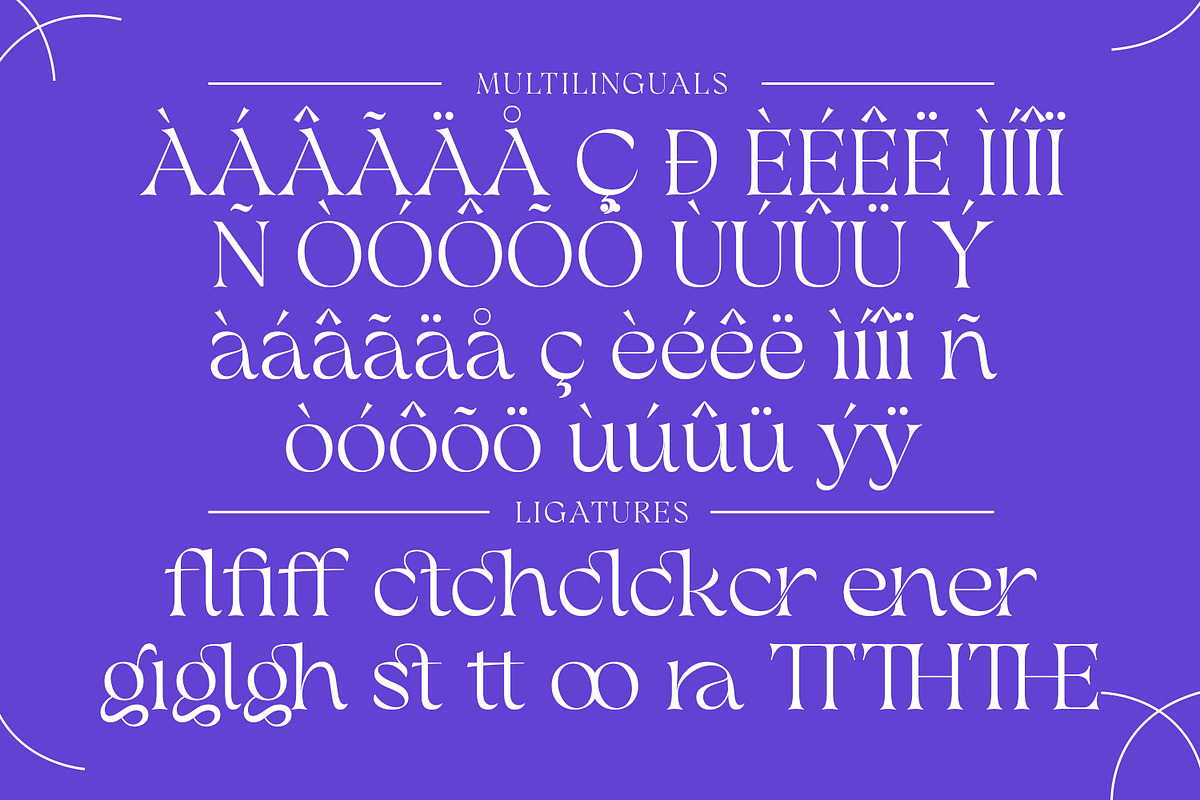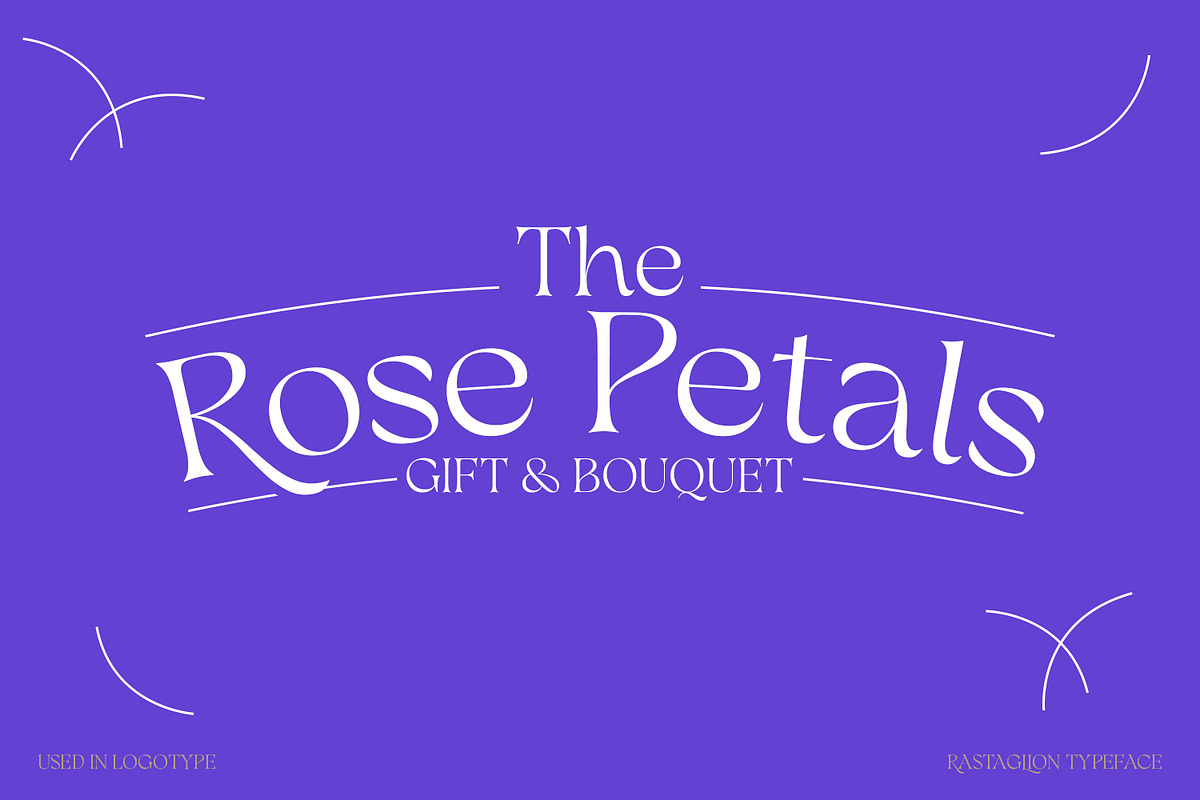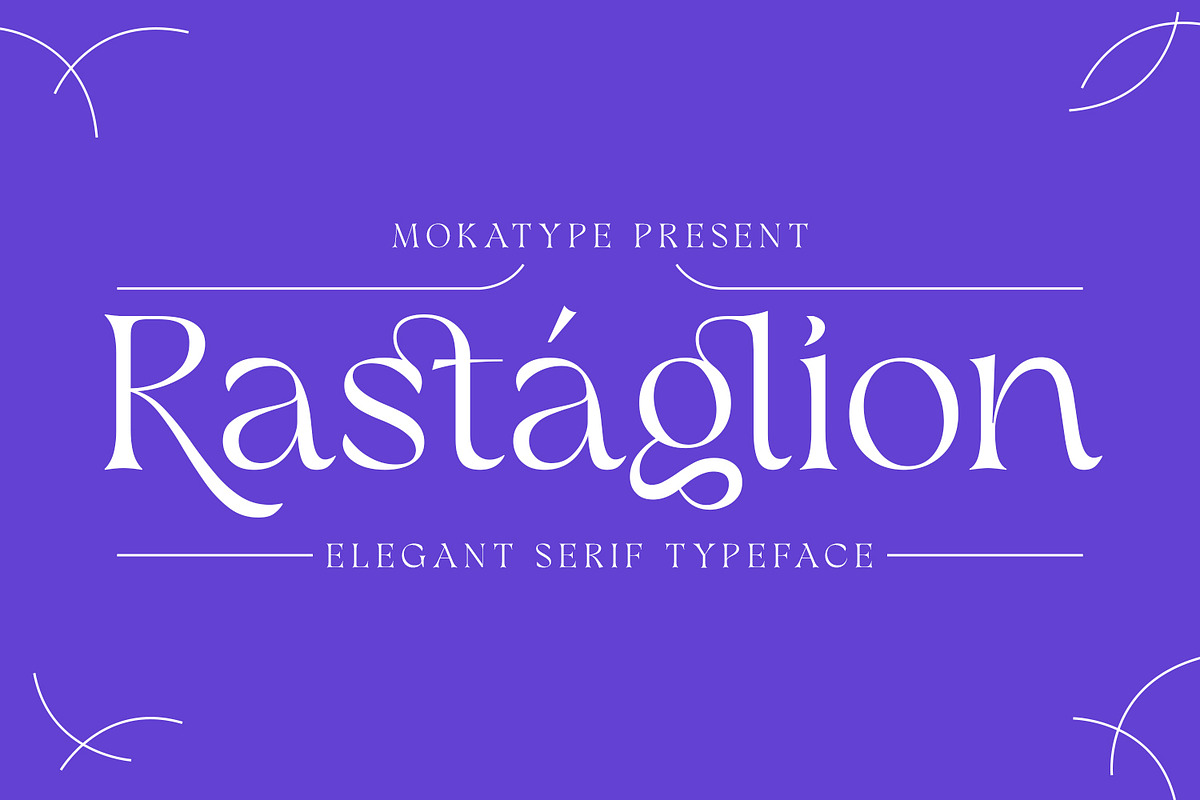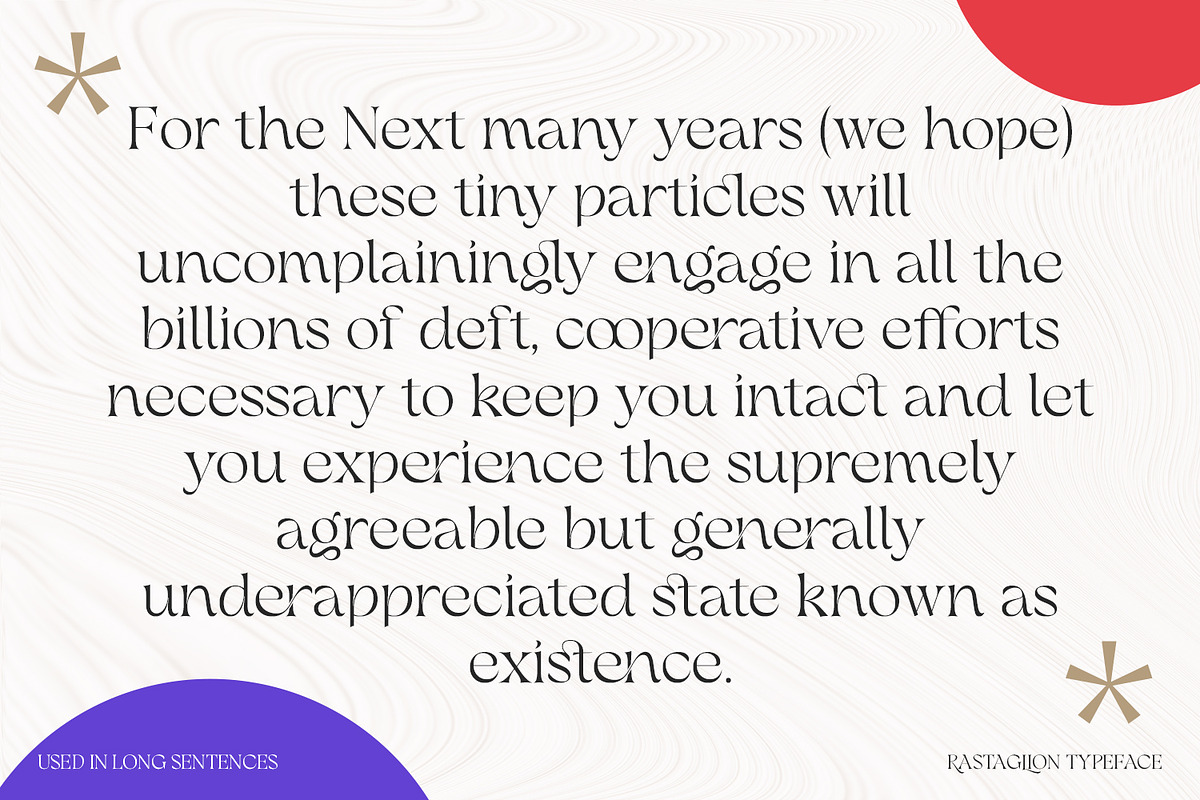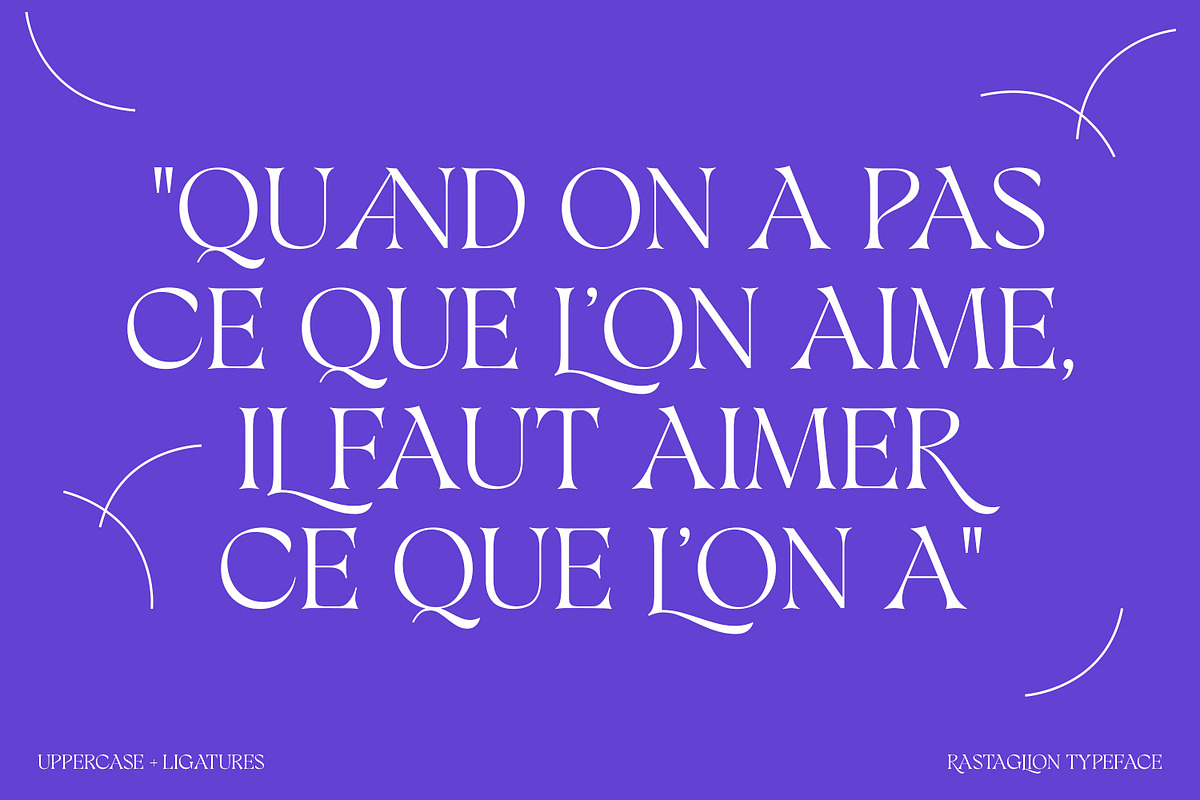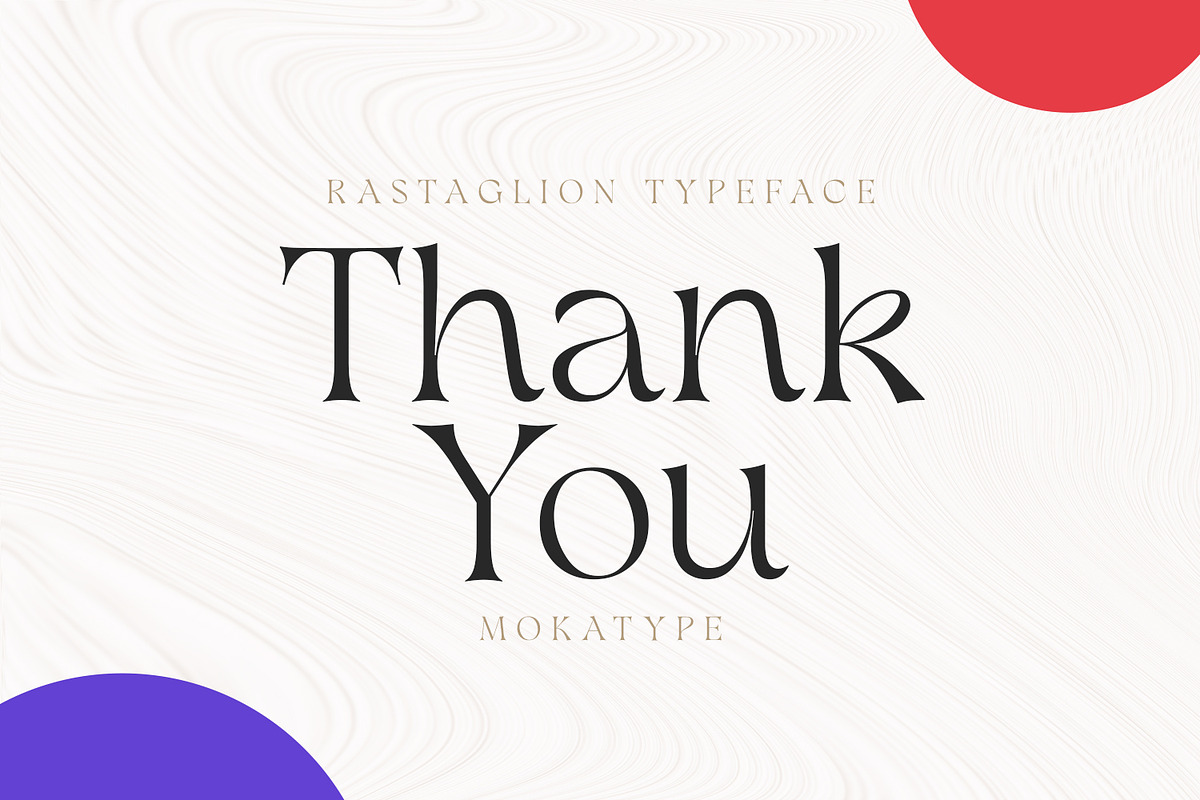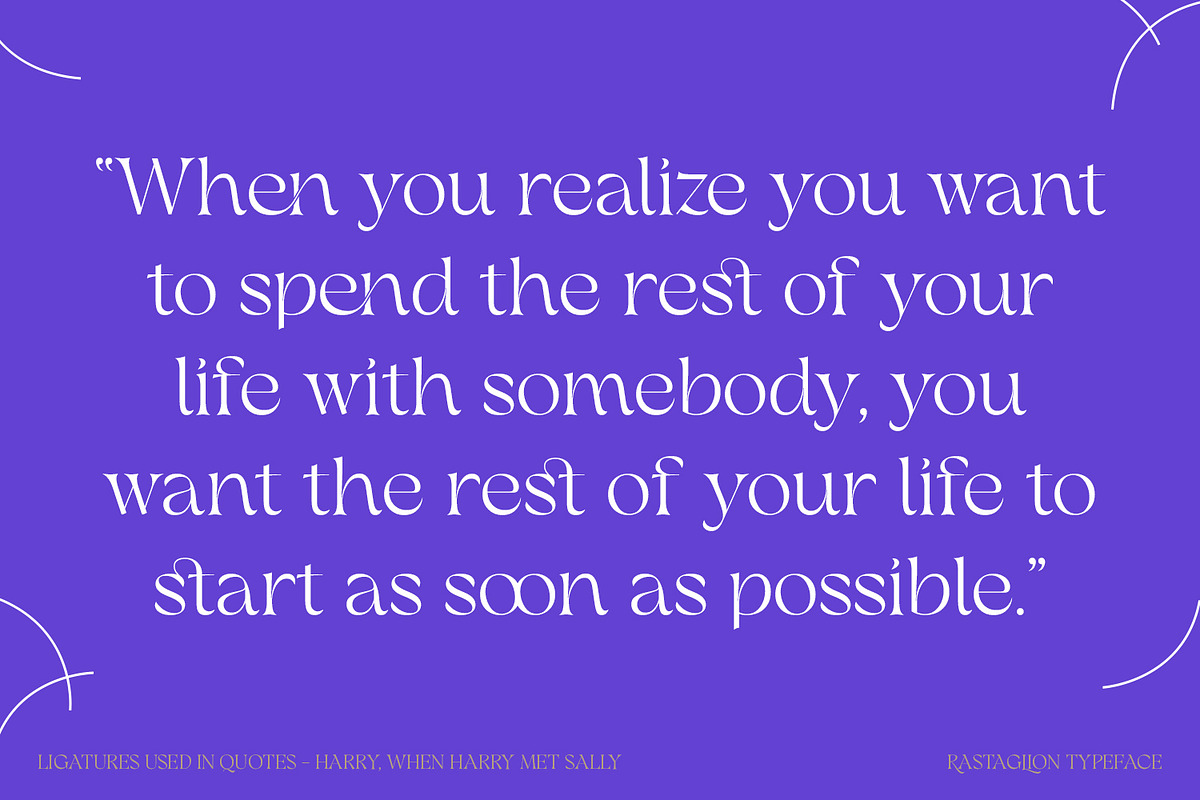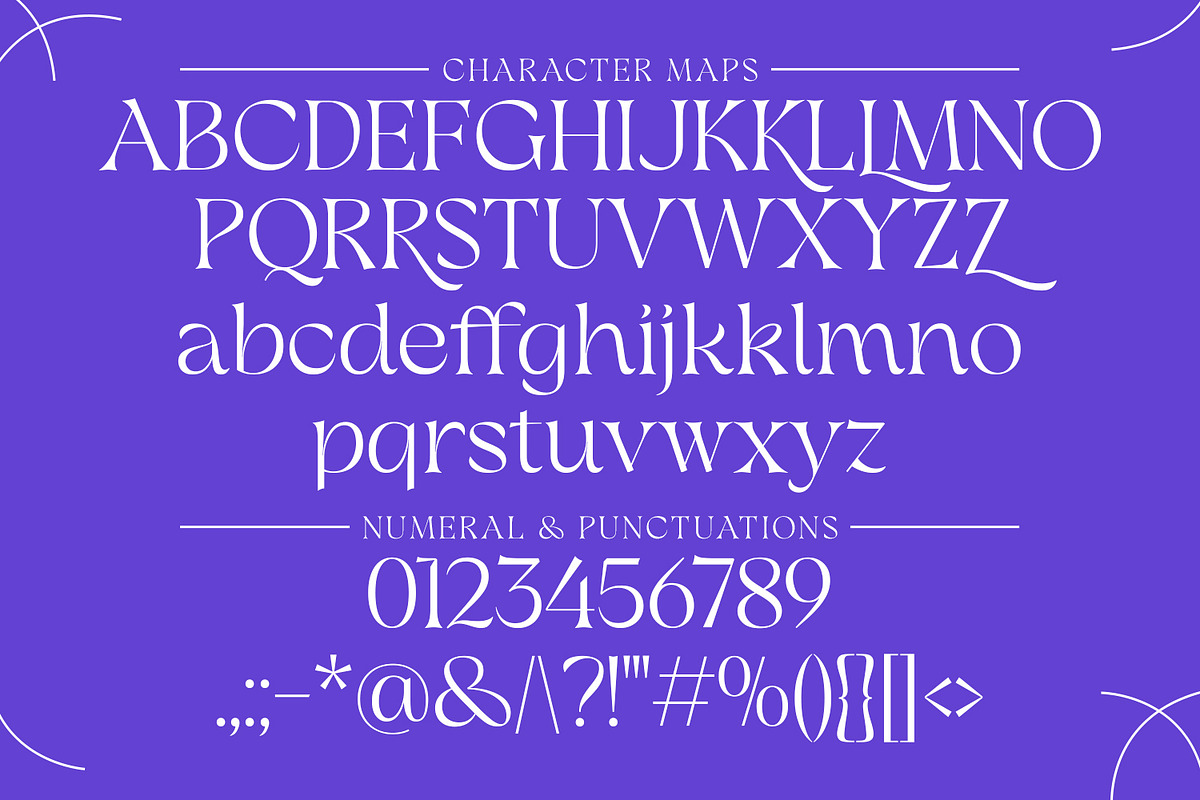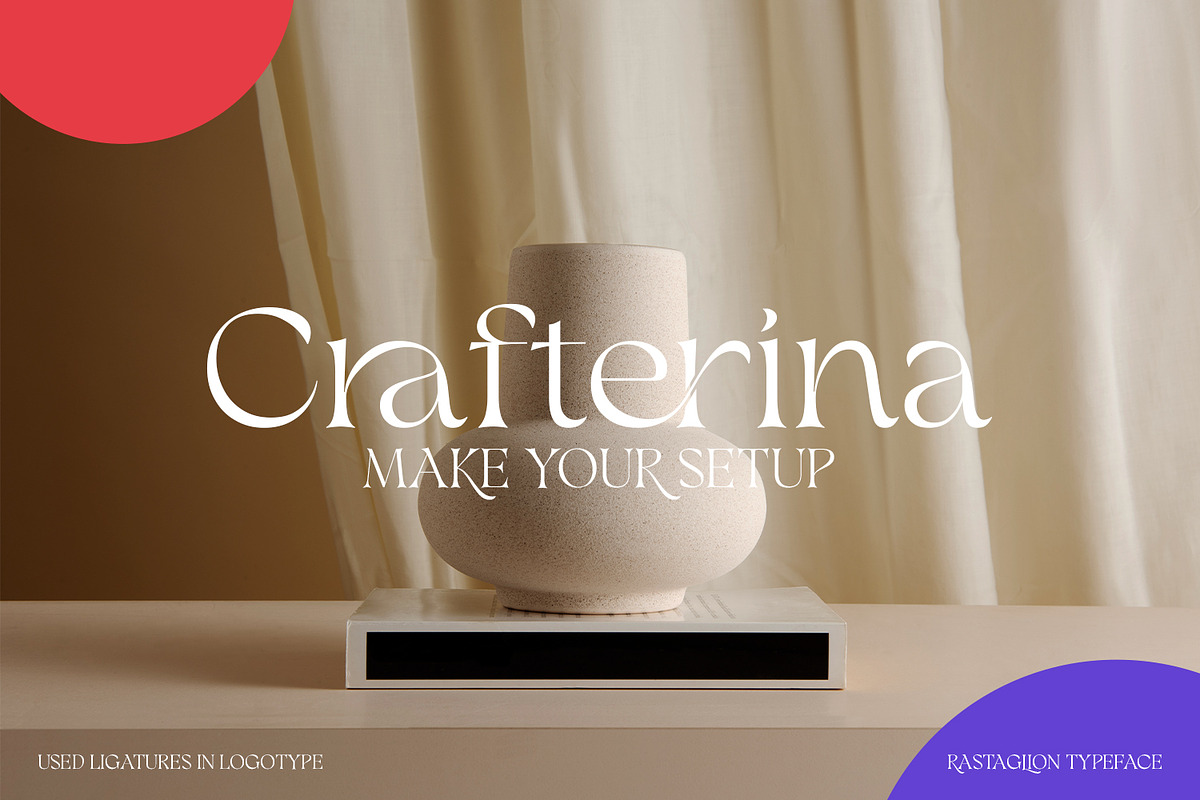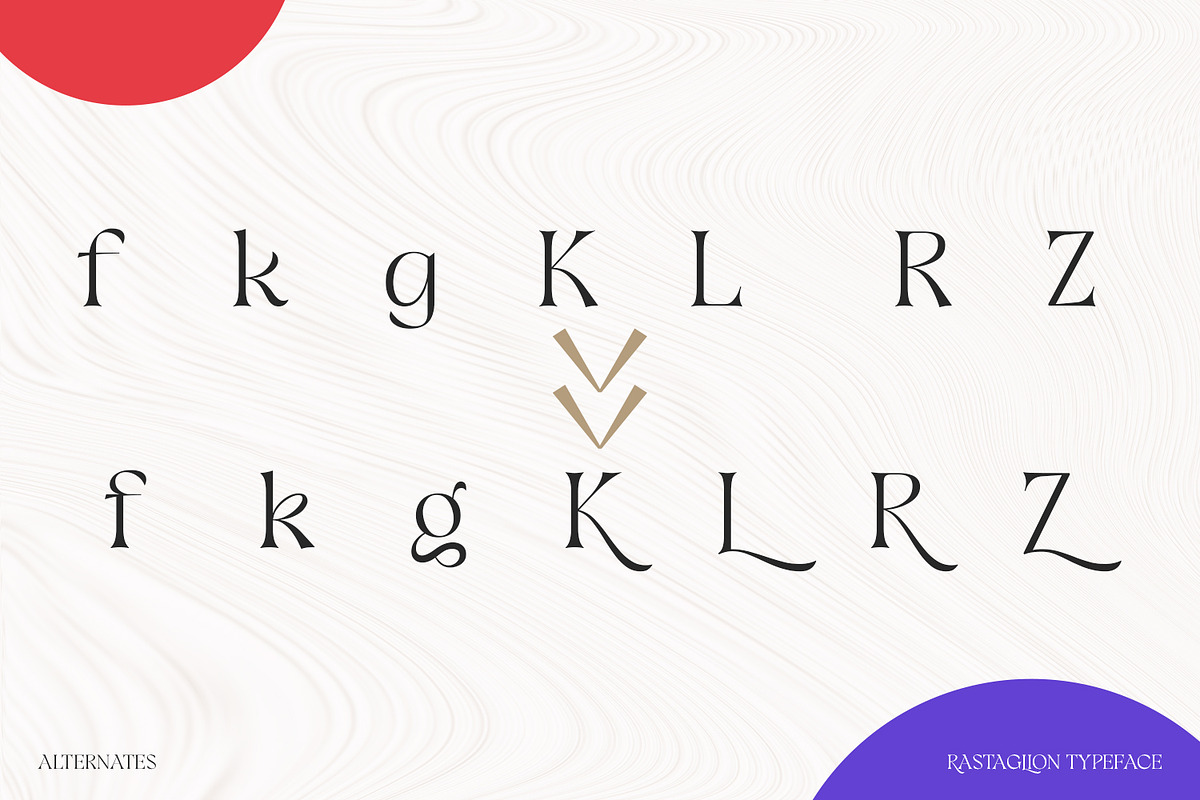
Rastaglion - Fluid Serif
Rastaglion is an old-modern serif font with single weight only, it has been inspired by the modern classification of serif typeface in the early 20th century. Rastaglion is designed to look very fluid and combined with some connected letters, which makes the beauty rhythmic of the letters. This typeface is suitable for short-text design, like headlines, logos, and brand names. If you need a multi-weight of this font, just tell us!
- Ligatures (Opentype features)